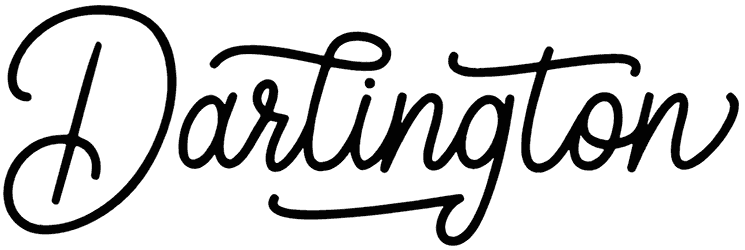
Darlington Font
We are willing to introduce a script font such as Darlington which comes with a cursive style that dances along the baseline. This majestic typeface carries a sense of drama, personalization, jauntiness, and delicacy, so it can attract the attention of the audience to your graphic content including product packaging, invitations, gift cards, and greeting cards in the shortest time.